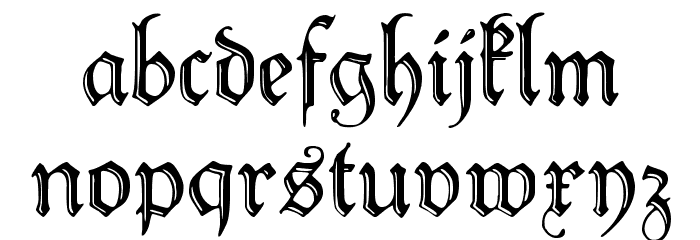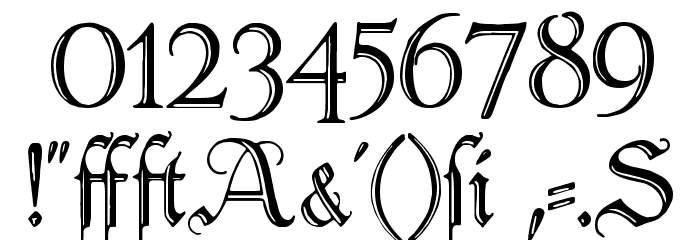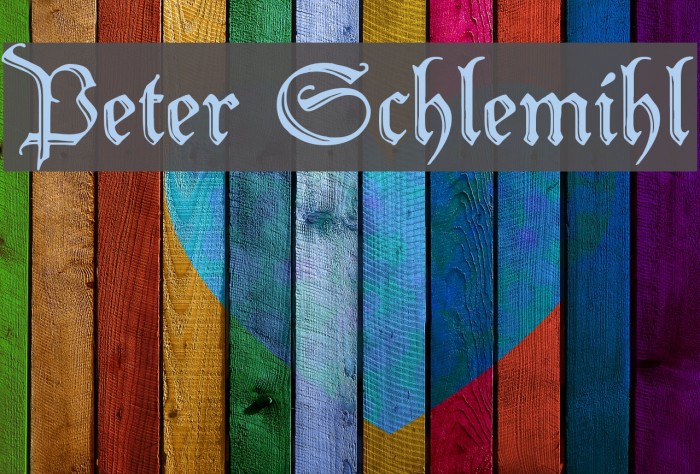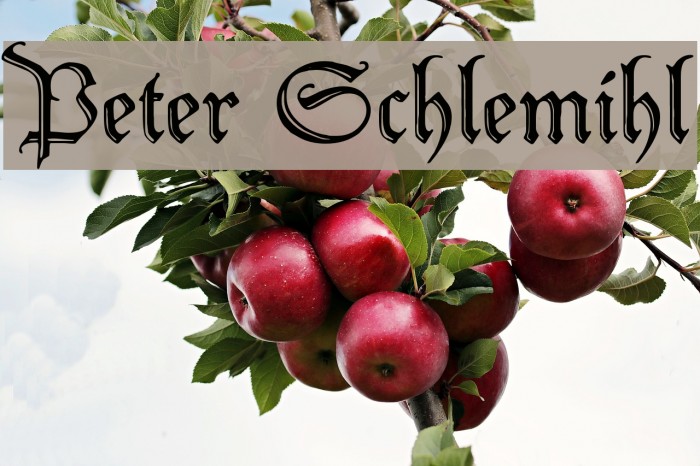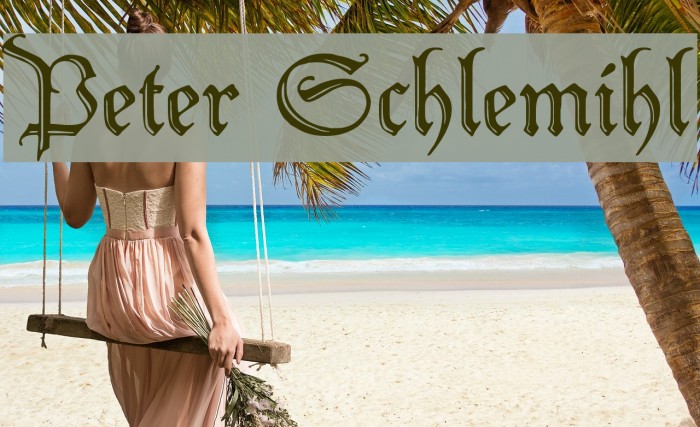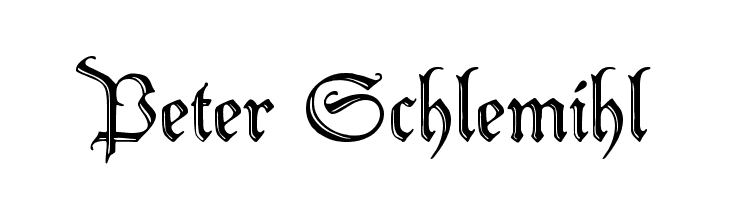
Peter Schlemihl Font
This font exhibits a classic blackletter style, characterized by its intricate and ornate letterforms. The uppercase letters feature sharp, angular lines with decorative flourishes, while the lowercase letters maintain a similar aesthetic with slightly more rounded edges. The numerals are bold and consistent with the overall style, offering a strong visual presence. Special characters are equally detailed, blending seamlessly with the alphabet. This font's historical and traditional appearance makes it ideal for projects that require a touch of elegance and sophistication.
A classic blackletter font with ornate, angular letterforms and decorative flourishes.
- Proposed Projects: Ideal for historical documents, certificates, wedding invitations, and branding that requires a traditional or gothic touch.
- Category: Blackletter
- Overall Style: Vintage
- Use Case: Logos, Headlines, Decorative text